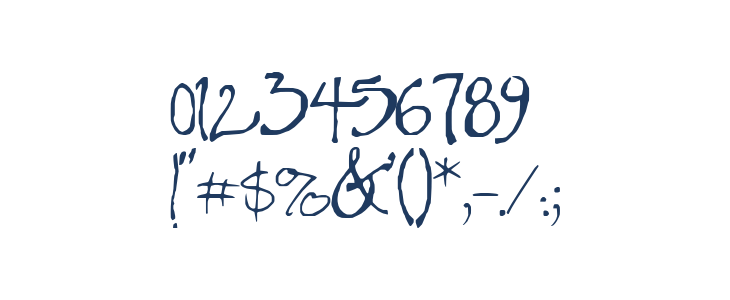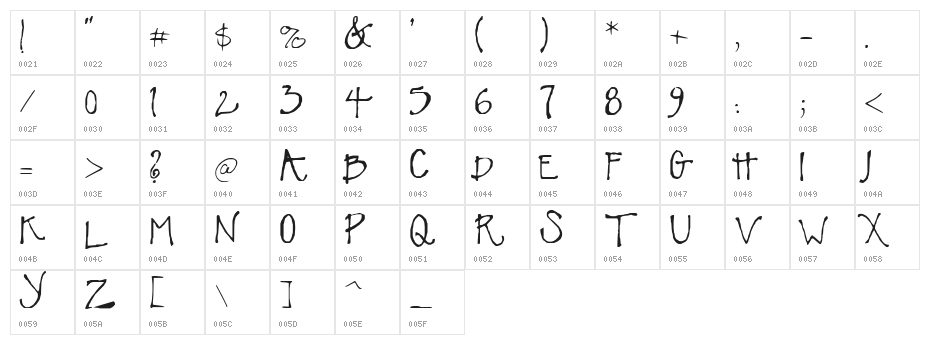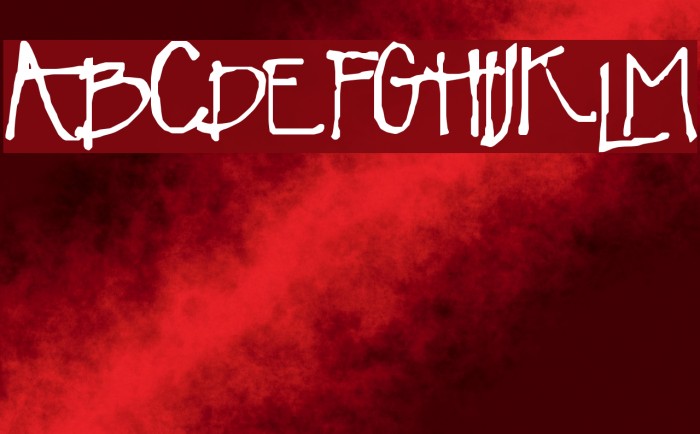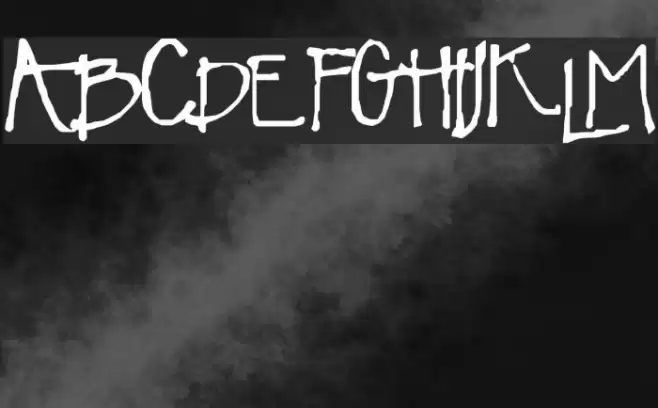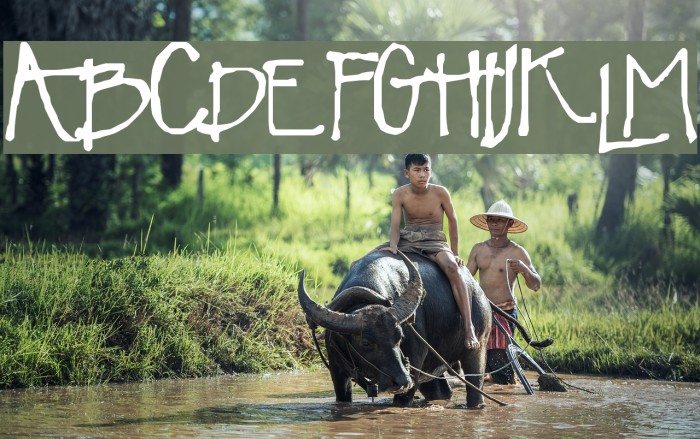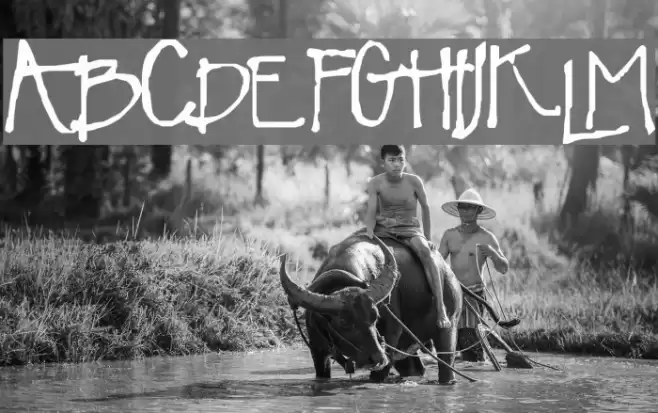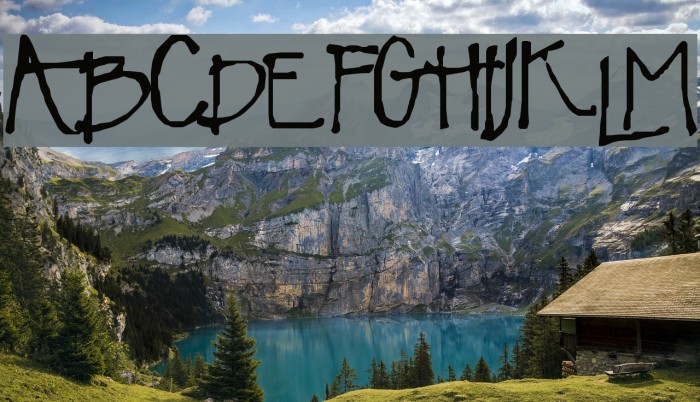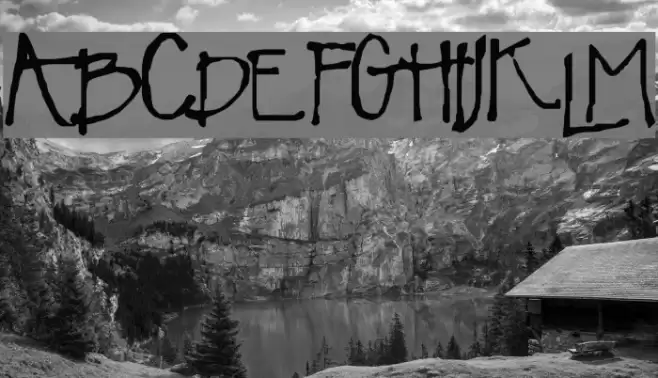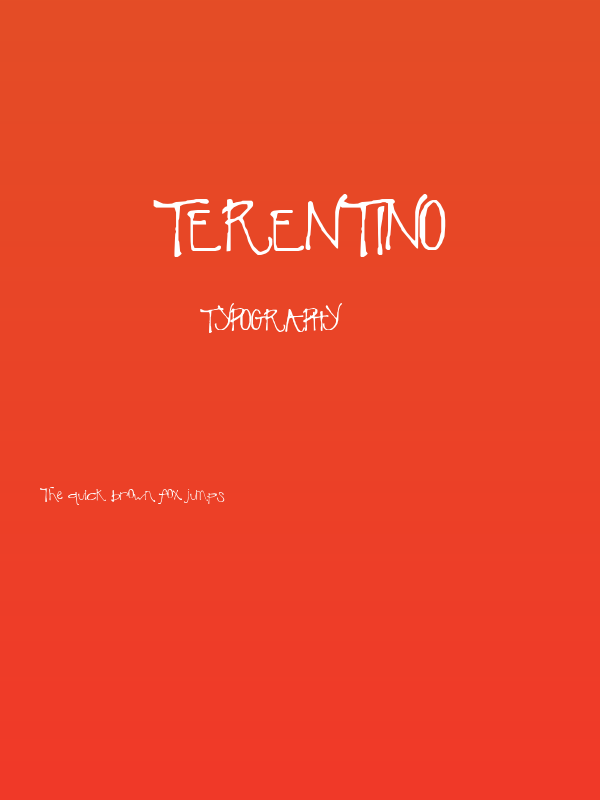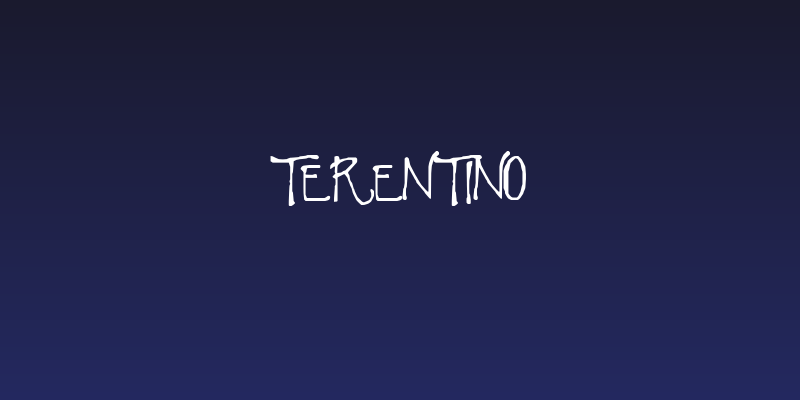
Terentino Font
Terentino Description
This font exhibits a playful and artistic handwritten style, characterized by its irregular and dynamic strokes. The letters are unevenly sized and spaced, giving it a casual, spontaneous feel. The uppercase letters are bold and prominent, while the lowercase letters maintain a consistent flow with slightly exaggerated curves and loops. Numbers and special characters follow the same whimsical design, adding to the font's overall charm. The font's unique personality makes it stand out, perfect for projects that require a touch of creativity and informality.
| Proposed Projects | Ideal for creative projects such as greeting cards, children's books, artistic posters, and personal branding. |